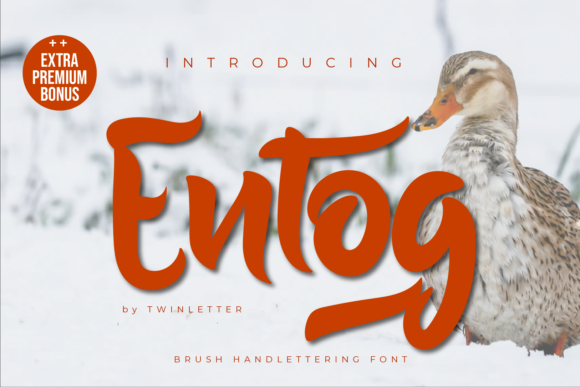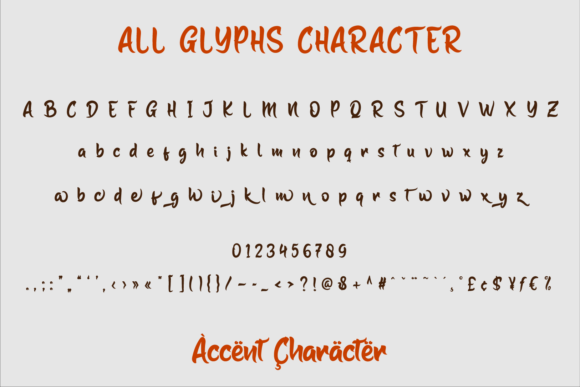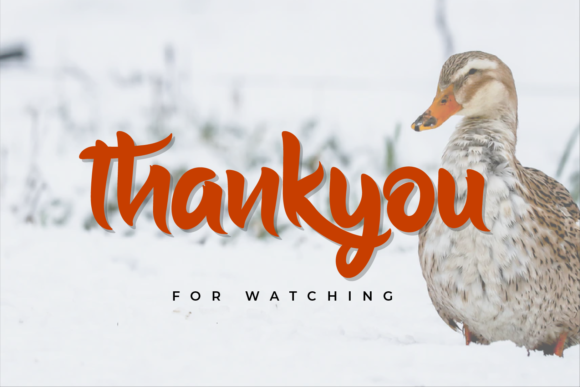
About Entog Font
Entog is a thick lettered and flowing handwritten font, ideal for your favorite projects. Fall in love with its incredibly distinct and timeless style and use it to create spectacular designs!